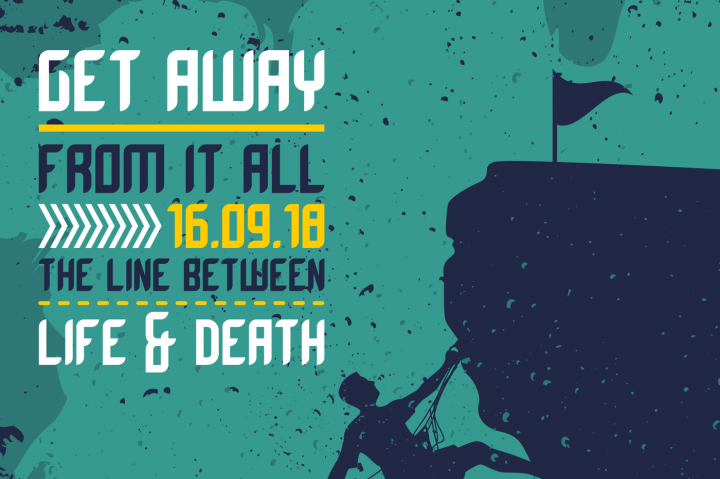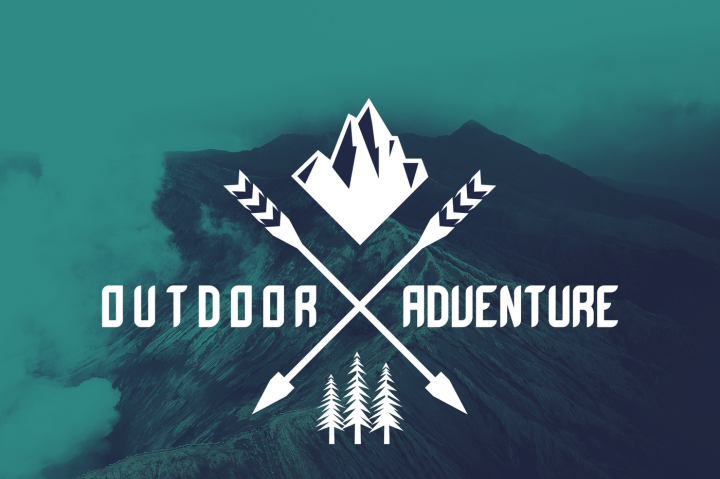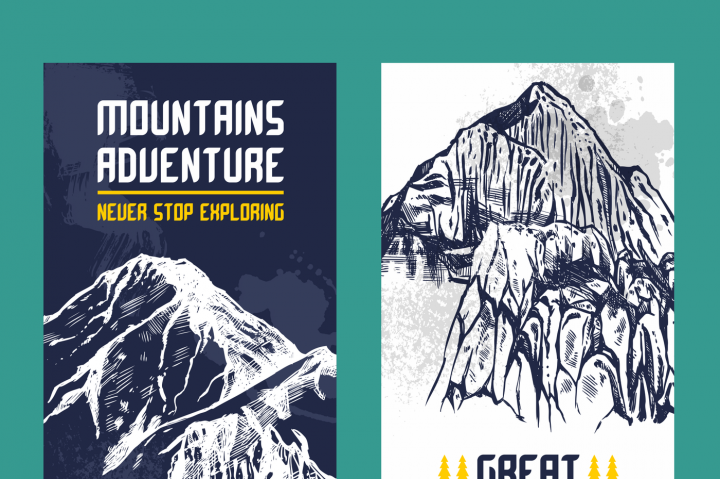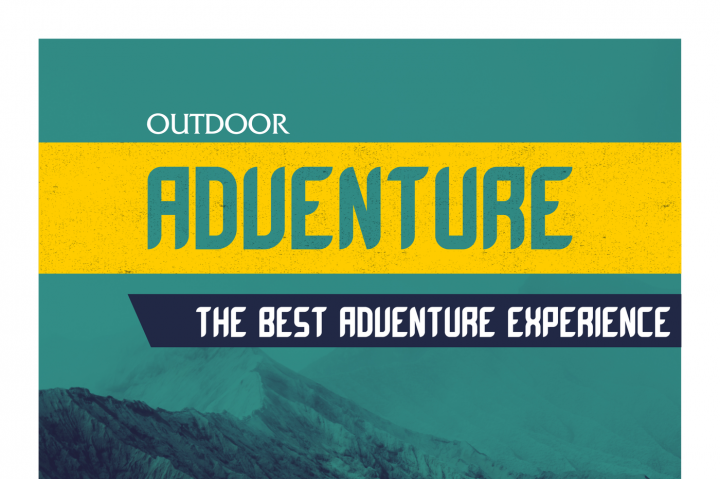
Bromount Typeface
Introducing the New Display Font, Bromount! It is designed and shared by Ojo Ngintype . Bromount is monoline display sans font very suitable many project, perfect for use in a wide range of creative projects. This font excels as a display or headline to your work, and can add a streamlined and sleek feel in any design.